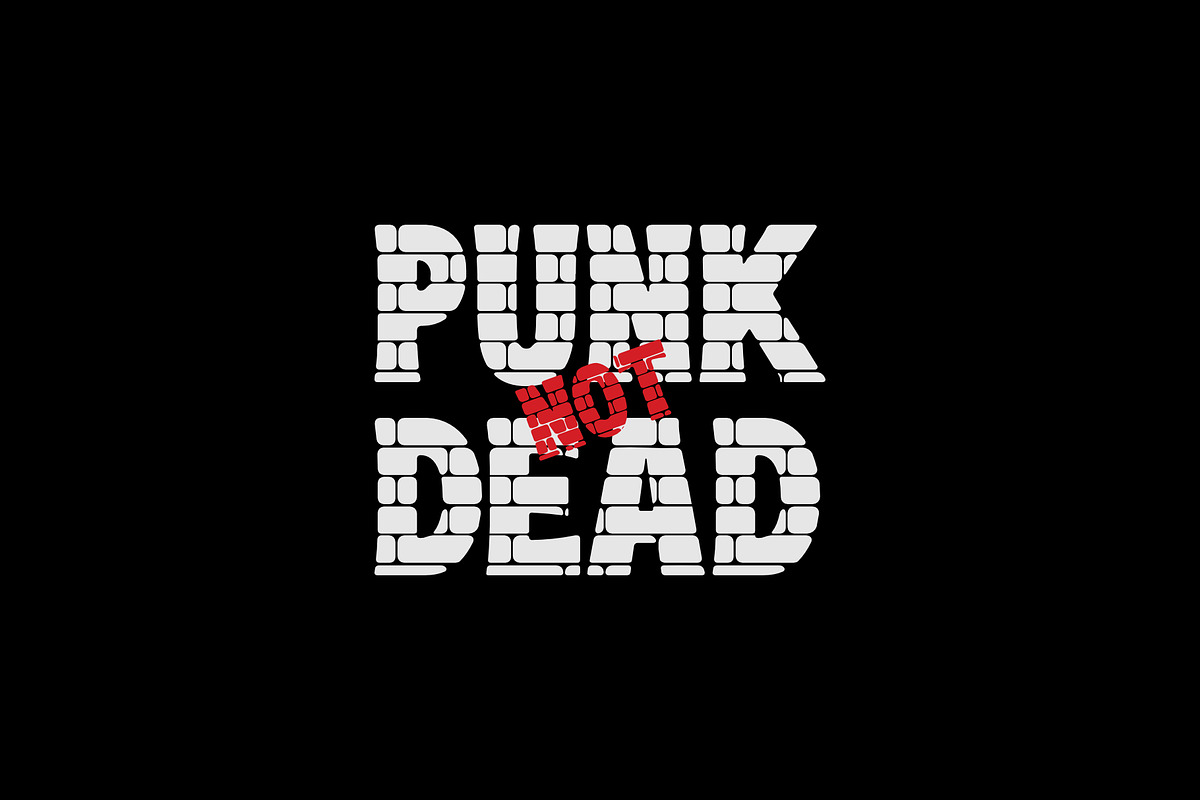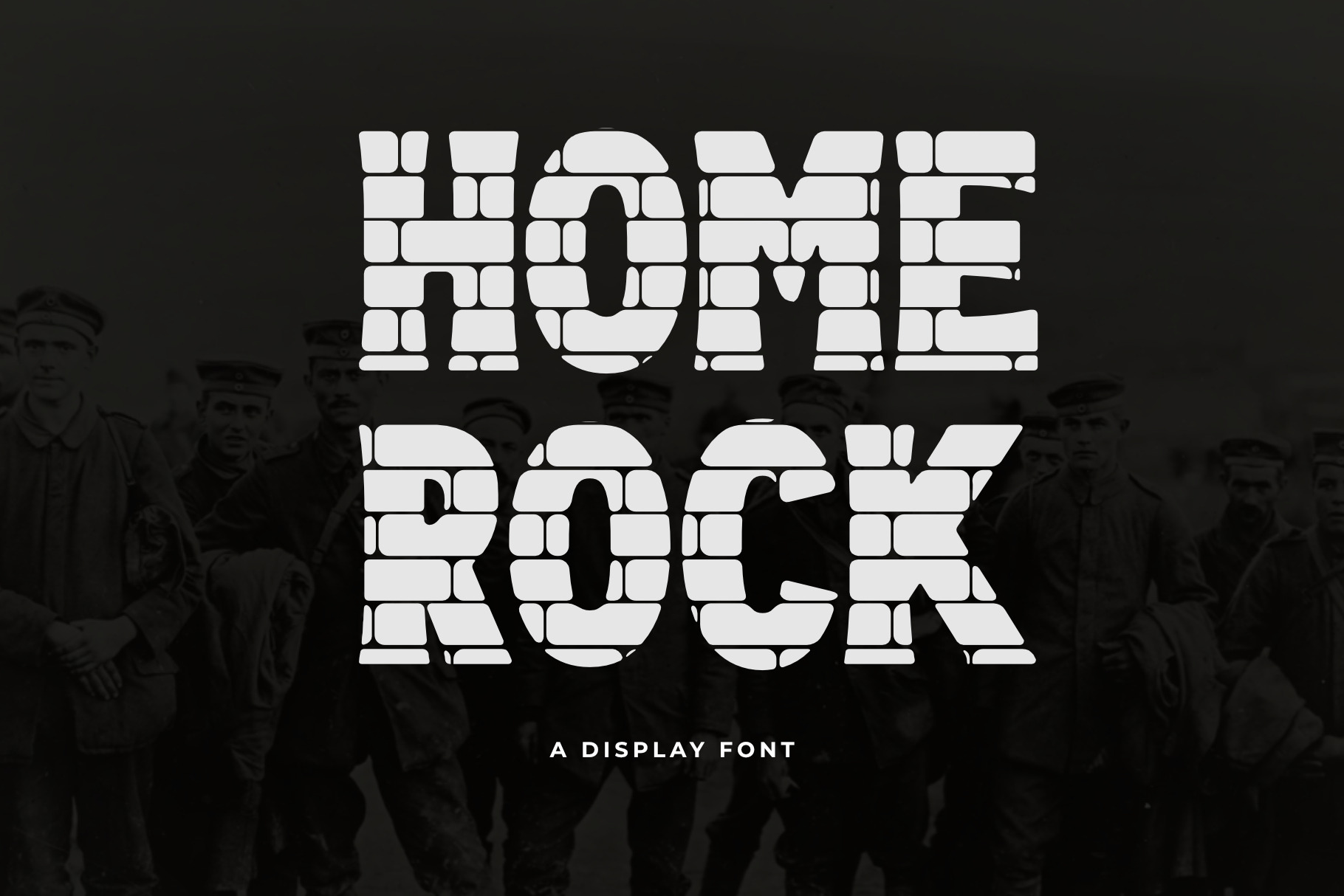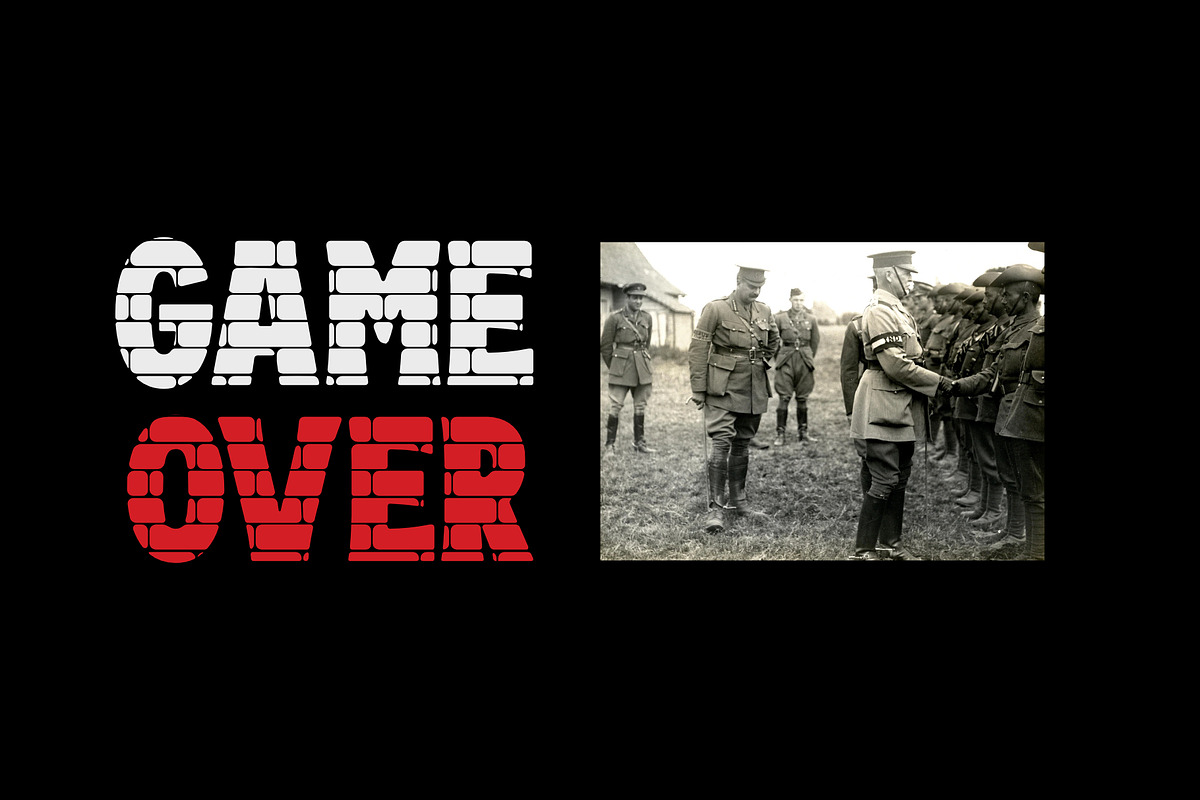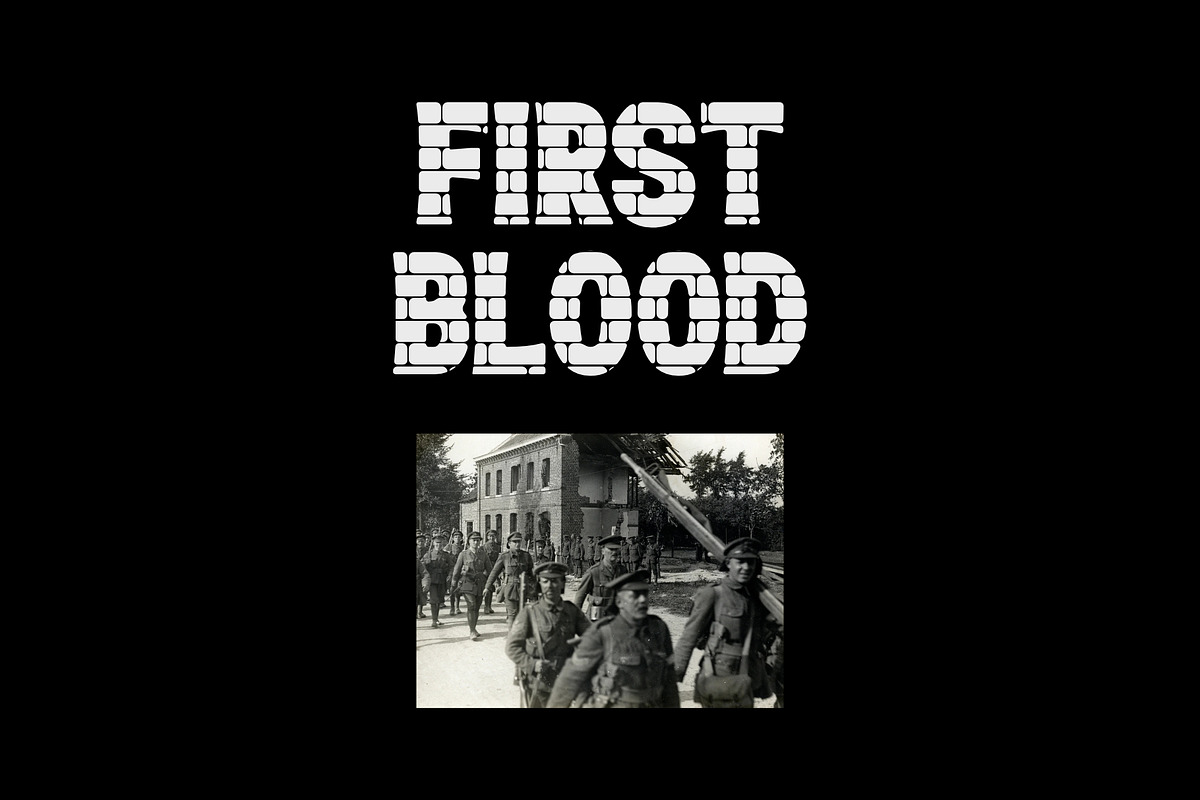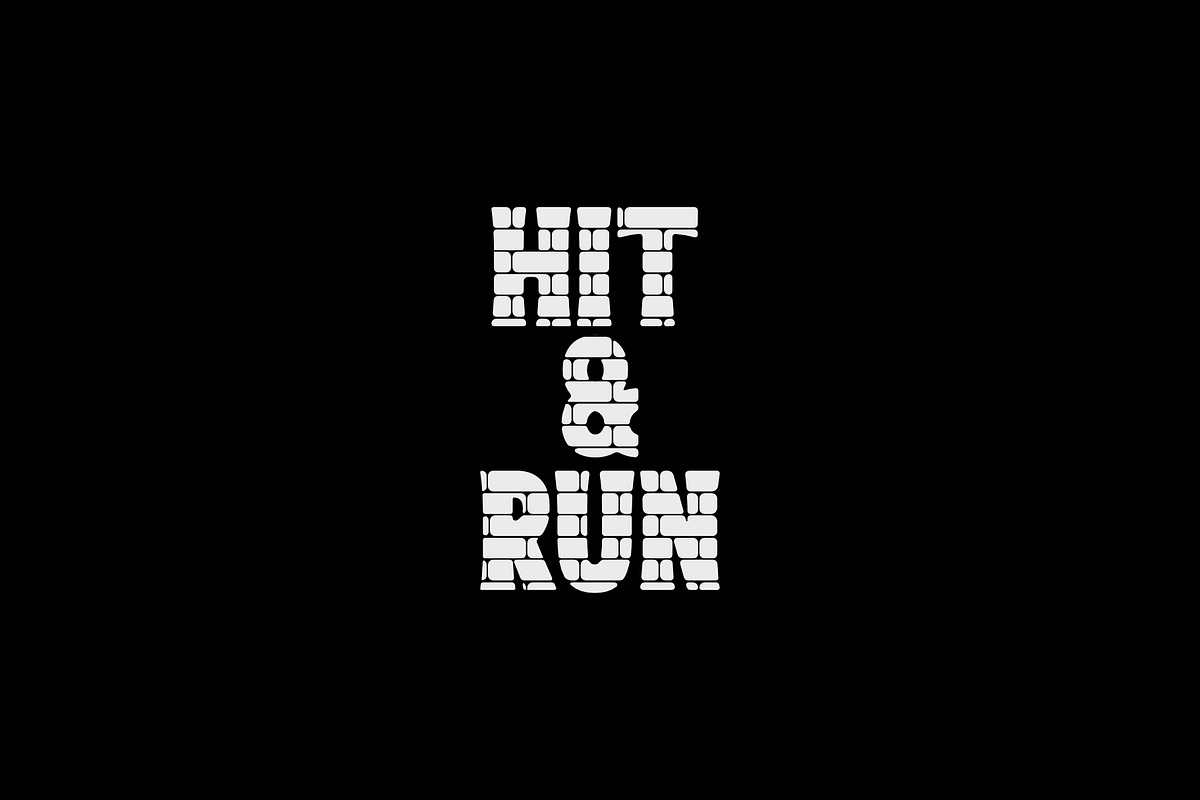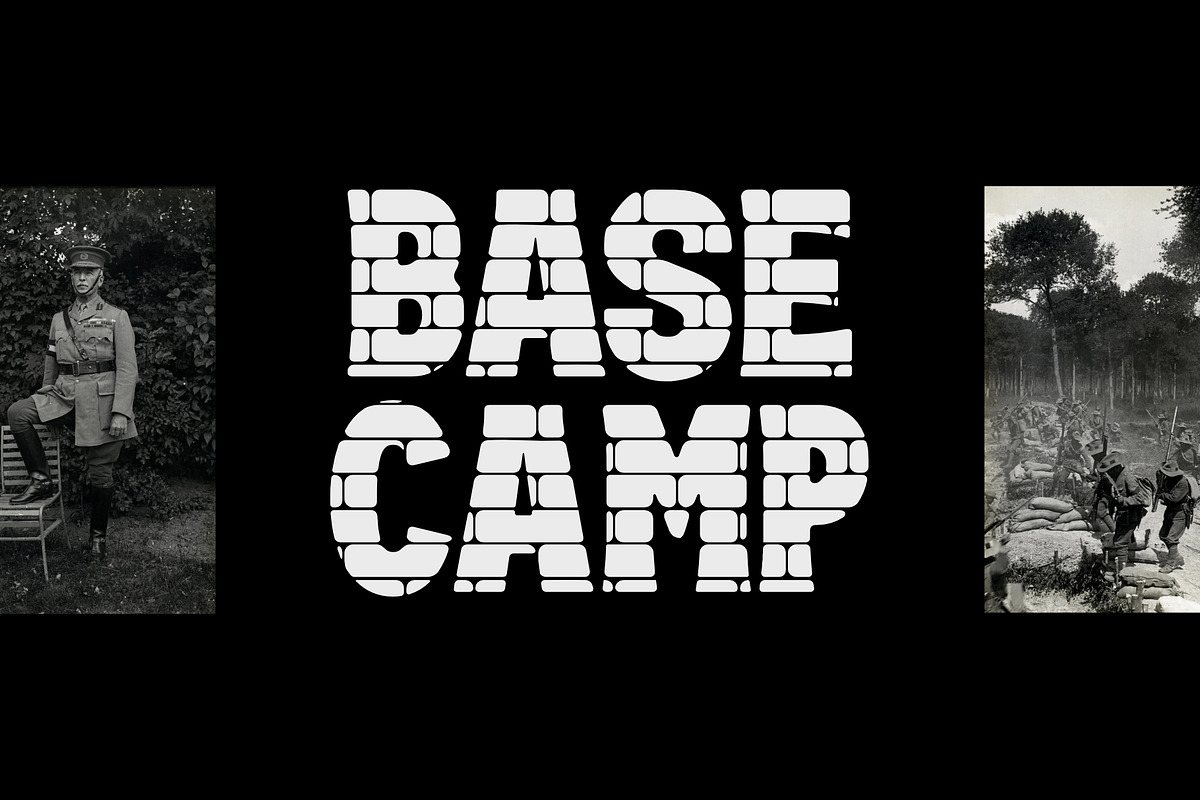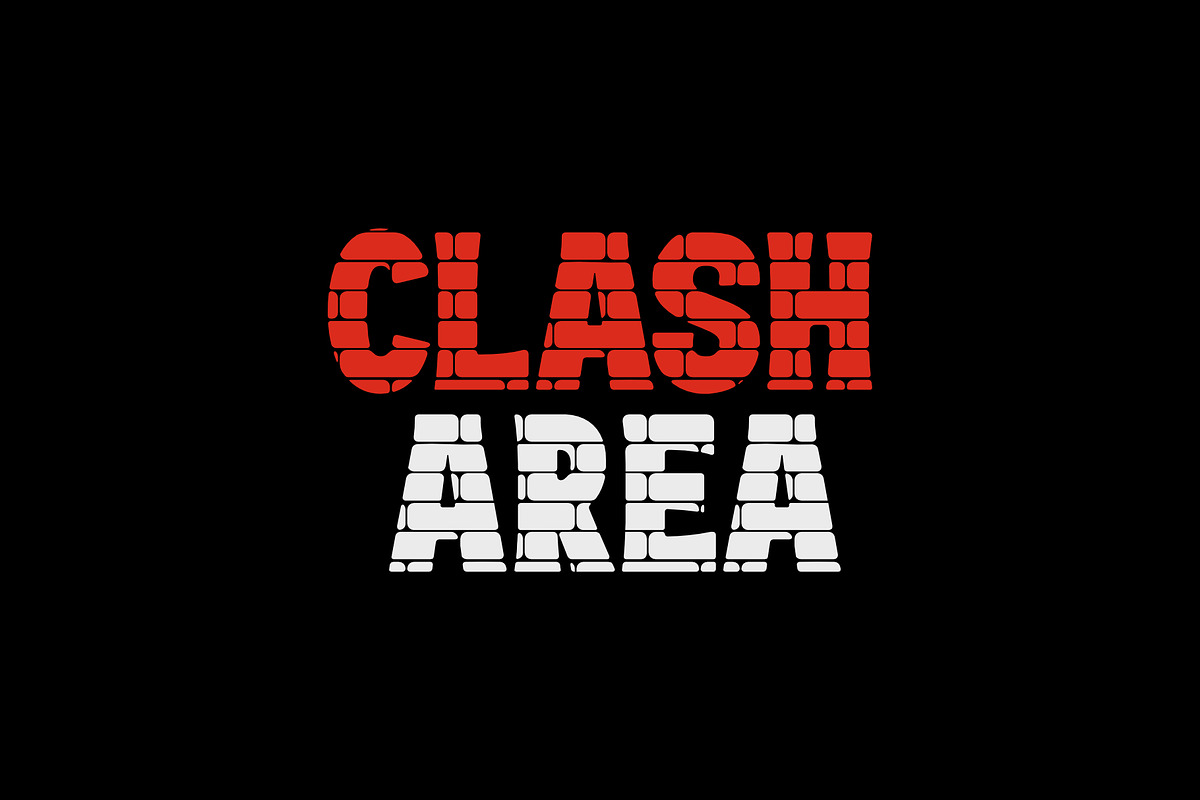
HOMEROCK FONT
Hello everyone, introduce my font. "HOMEROCK” font is made with great taste. It is very suitable to be placed on your project such as for weddings, printing, advertising, campaigns, posters, book titles, and so on.